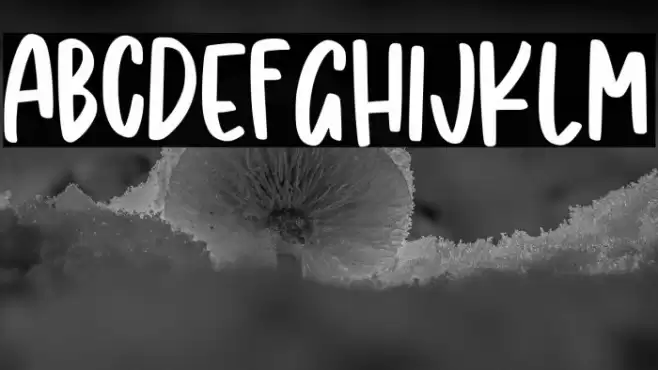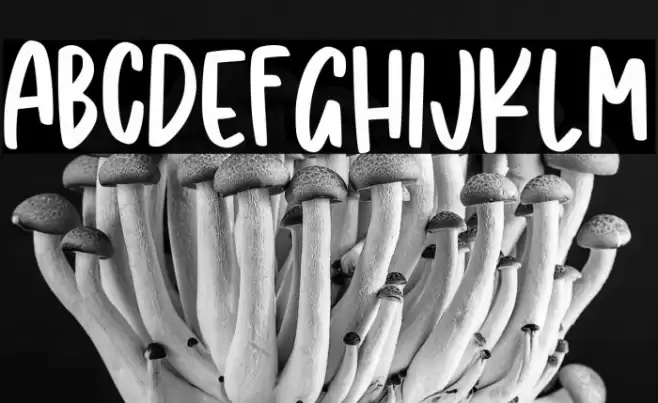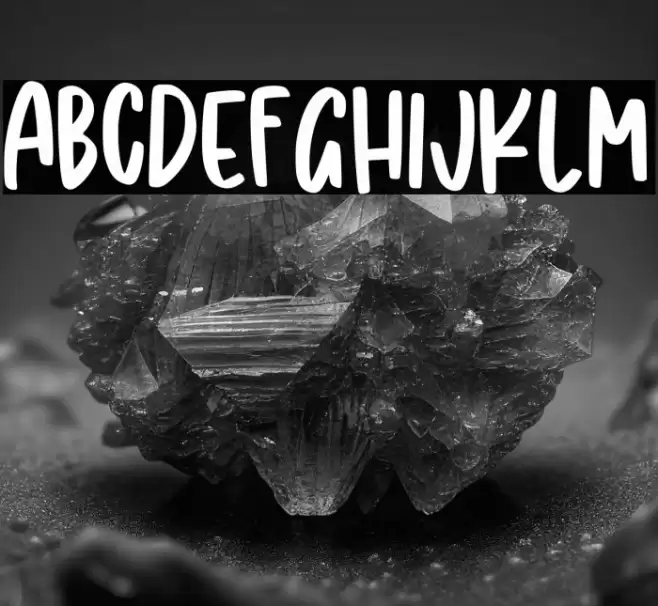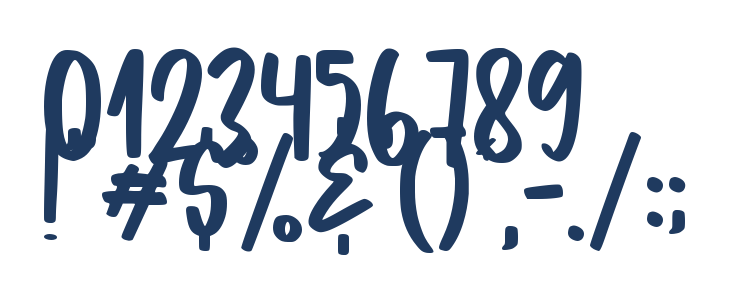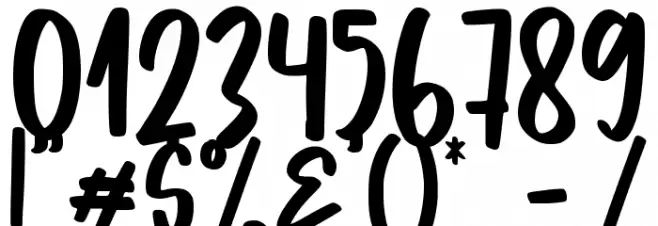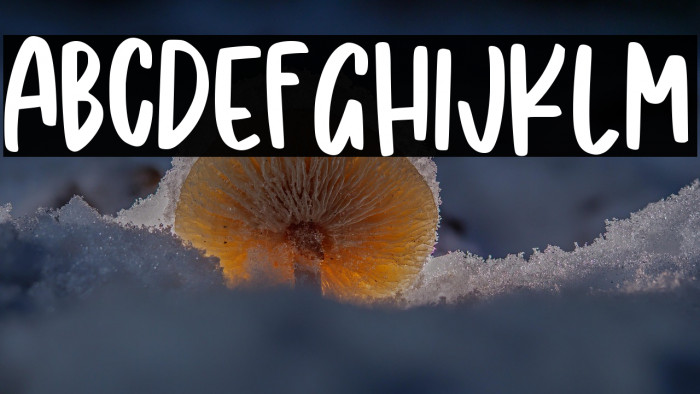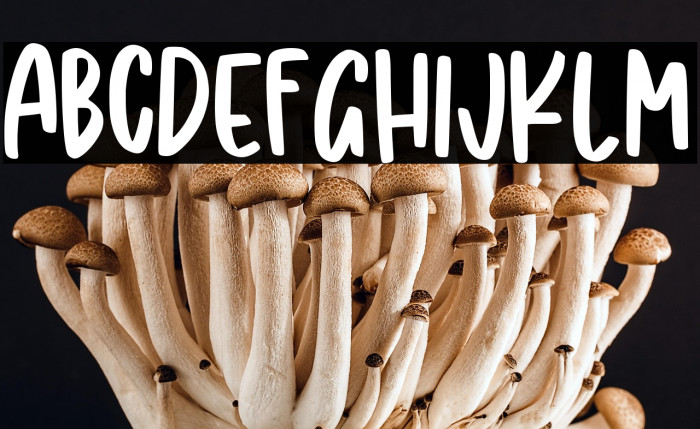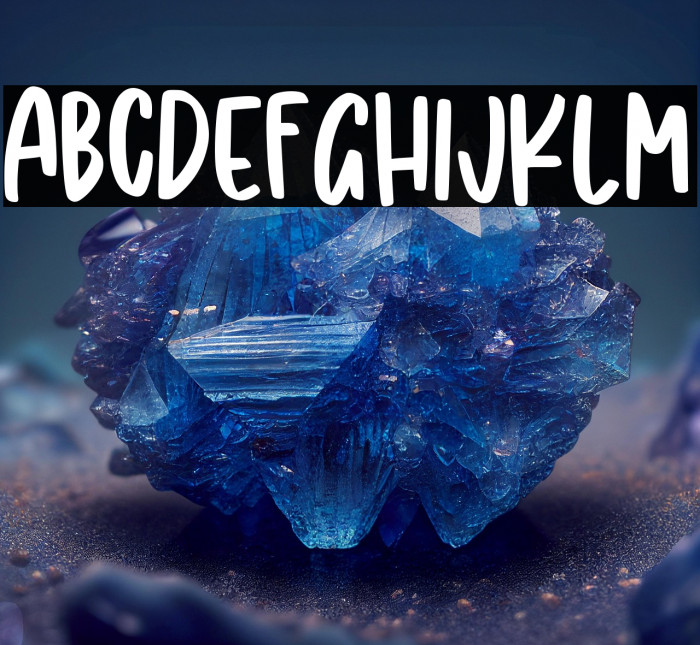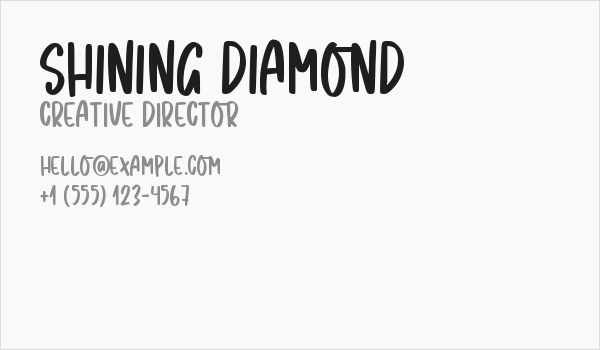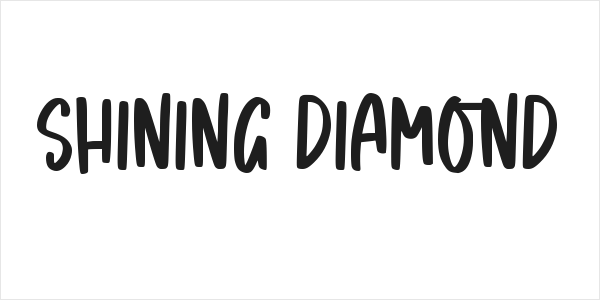
Shining Diamond Font
Shining Diamond Description
This font features a playful and bold handwritten style, characterized by its thick strokes and casual, informal appearance. The letters are slightly slanted, adding to the dynamic and energetic feel. The uppercase and lowercase letters maintain consistent proportions, with rounded edges that contribute to a friendly and approachable look. The numbers and special characters follow the same style, ensuring uniformity across all glyphs. This font is well-suited for designs that aim to convey a sense of fun and creativity, making it ideal for informal branding, children's books, or playful graphic design projects.
A bold, playful handwritten font with thick strokes and a casual style from Uncategorized fonts.
- Font: Shining Diamond
- Proposed Projects: Ideal for children's books, playful branding, casual invitations, and creative graphic design projects.
- Overall Style: Playful, Informal
- Use Case: Logos, Headlines, Informal Text